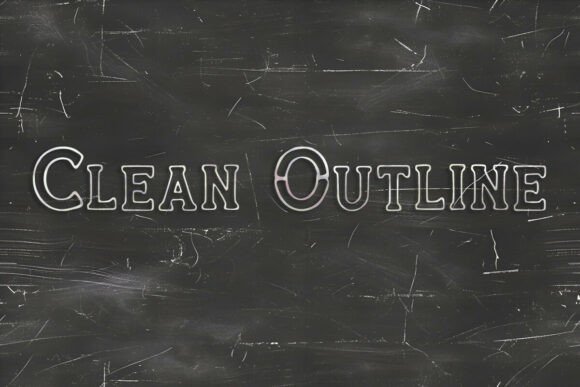
Introducing Clean Outline Font: The Ultimate Display Font for Modern Elegance
In the world of typography, a well-designed font can make all the difference in creating a lasting impression. Introducing ‘Clean Outline’, a versatile display font that strikes a perfect balance between contemporary aesthetics and timeless elegance. This stunning font is designed to thrive across a multitude of platforms, making it the perfect choice for crafty projects, digital designs, and branding experiences.
Unleash Your Creativity with Clean Outline Font
‘Clean Outline’ is more than just a font – it’s a design statement. Its runway-worthy font style is perfect for crafting head-turning shirts, vibrant stickers, engaging magazines, and unforgettable branding experiences. Whether you’re a designer, artist, or DIY enthusiast, this font is sure to elevate your projects and make them stand out from the crowd.
Clean Outline Font in the Digital Space
The ‘Clean Outline’ font truly shines in the digital space, enhancing SVG files, personalizing greeting cards, and imbuing Cricut projects with a distinct flair. Its sleek and modern design makes it perfect for digital designs, such as social media graphics, blog posts, and website headers.
- SVG Files: Add a touch of elegance to your SVG files with ‘Clean Outline’. Its clean lines and precise curves make it perfect for cutting files, logos, and icons.
- Greeting Cards: Personalize your greeting cards with ‘Clean Outline’. Its stylish charisma adds a touch of sophistication to any occasion, from birthdays to weddings.
- Cricut Projects: Take your Cricut projects to the next level with ‘Clean Outline’. Its unique flair and modern design make it perfect for vinyl signs, iron-on designs, and paper crafts.
Elevate Your Posters and Social Media Content
‘Clean Outline’ effortlessly elevates posters with its stylish charisma, transforming them into eye-catching masterpieces. Its versatility also extends to social media content, where it can turn ordinary posts into visual masterpieces that capture attention and inspire engagement.
- Posters: Create stunning posters that grab attention with ‘Clean Outline’. Its modern design and clean lines make it perfect for advertising, promotion, and events.
- Social Media Content: Transform your social media content into visual masterpieces with ‘Clean Outline’. Its stylish charisma and versatility make it perfect for Facebook, Instagram, Twitter, and more.
The Benefits of Clean Outline Font
So, what makes ‘Clean Outline’ font so special? Here are just a few benefits of using this versatile display font:
- Contemporary Aesthetics: ‘Clean Outline’ boasts a modern design that’s perfect for brands and designers looking for a fresh look.
- Timeless Elegance: Despite its modern twist, ‘Clean Outline’ exudes timeless elegance, making it suitable for a wide range of projects and applications.
- Versatility: ‘Clean Outline’ can be used across multiple platforms, from print to digital, and is perfect for various design projects.
- Attention-Grabbing: This font is designed to capture attention and make a lasting impression, whether in print or digital form.
In conclusion, ‘Clean Outline’ font is a versatile display font that offers a perfect blend of contemporary aesthetics and timeless elegance. Its runway-worthy font style makes it perfect for crafting head-turning designs, while its sleek and modern design shines in the digital space. Whether you’re a designer, artist, or DIY enthusiast, ‘Clean Outline’ is sure to elevate your projects and make them stand out from the crowd.